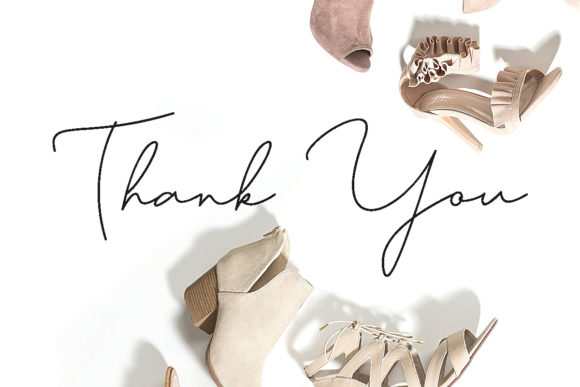
Introduction to Shefiratte Font
Have you ever stared at a blank page, searching for the perfect font to bring your creative project to life? The struggle is real, but today we’re here to introduce you to a game-changing design resource that will make your heart skip a beat – the Shefiratte Font. This magical handwritten font is carefully crafted with a touch of elegance, combining timeless sophistication with authentic calligraphy.
Imagine being able to add a personal touch to your designs with a font that exudes warmth and friendliness, yet still maintains a classic charm. The Shefiratte Font is the perfect solution for designers who want to stand out from the crowd and create truly original and outstanding designs. With its high-quality design and transparent background, this font is a valuable addition to any designer’s toolkit.
Key Features of Shefiratte Font
- Shefiratte Font is a high-quality, free design resource ideal for creative projects requiring a unique touch.
- The font features a unique blend of elegance and playfulness, making it perfect for projects requiring a creative twist.
- Its high-quality design and versatility make it an excellent addition to any designer’s toolkit.
Honest Review: Shefiratte Font
I recently stumbled upon the Shefiratte Font, and I must say it’s been a game-changer for my creative projects. The high-quality design is sleek and modern, making it perfect for any project that requires a sophisticated touch.
What works well: ✨ The font’s transparent background allows for seamless integration with any design, giving me complete control over the final look. The free download is also a huge plus, making it an excellent resource for designers on a budget. The font’s versatility and wide range of applications make it an excellent addition to my design arsenal.
- Wide range of applications, from headings to body text
- High-quality design that’s perfect for modern projects
However, I do have a few minor quibbles: ⚠️ The font can be a bit difficult to read in smaller sizes, and the lack of italic and bold variants is a drawback for some designers. Additionally, the font may not be suitable for projects that require a lot of emphasis or dramatic flair.
Overall, I’m impressed with the Shefiratte Font, and I highly recommend it to designers looking for a high-quality, versatile font for their creative projects. With a little tweaking, it can be a valuable addition to any design resource collection.
Tips for Getting the Most Out of Shefiratte Font
Use the Shefiratte Font with a transparent background to create a clean and modern design. Experiment with different font sizes and colors to add visual interest to your design.
Common Use Cases for Shefiratte Font
The Shefiratte Font is commonly used in creative projects, such as logos, business cards, and social media graphics. Its high-quality design and transparent background make it an ideal choice for designers looking to create visually appealing designs.